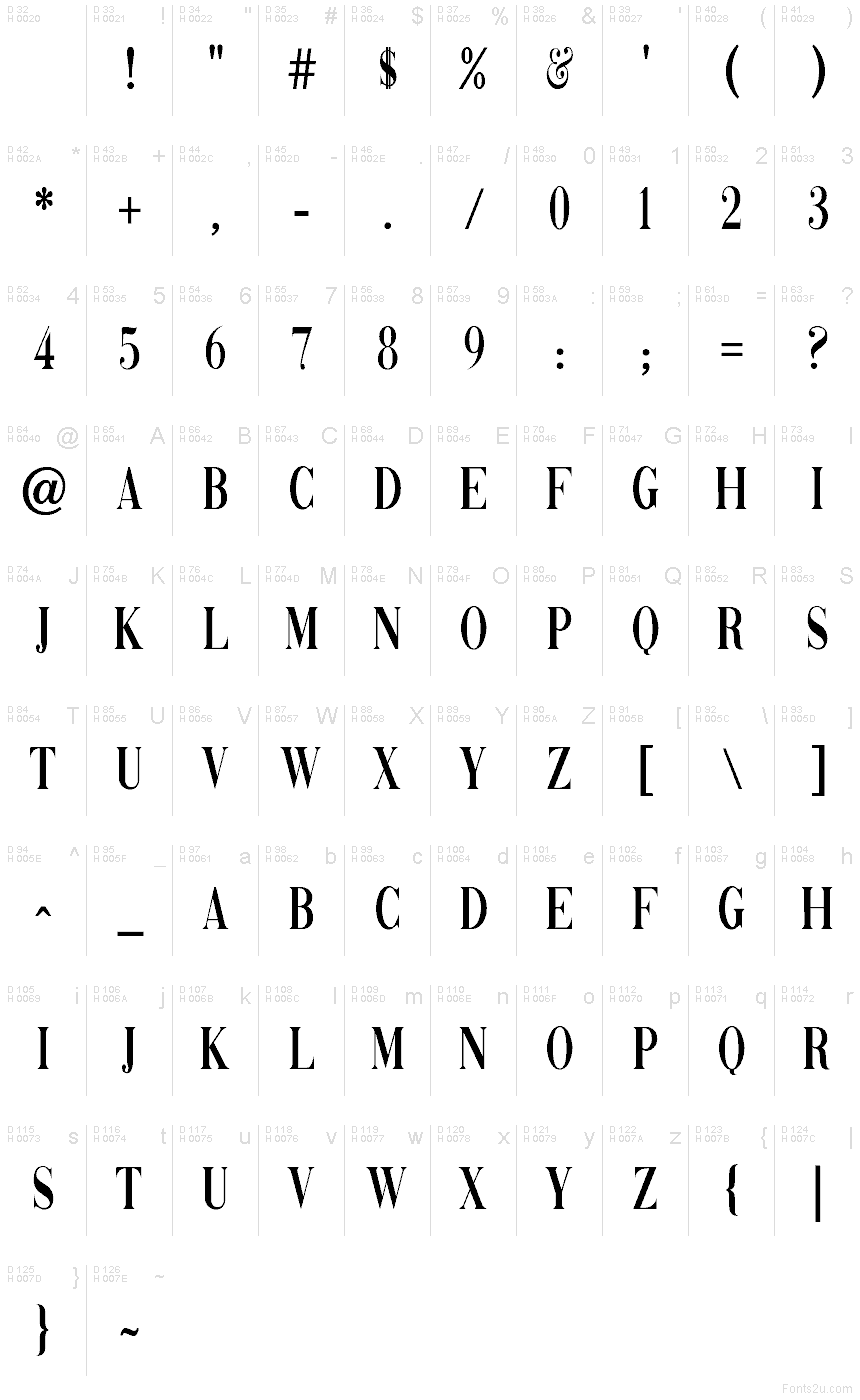
Misky font by Graphicxell is a free modern serif typeface. Its signature look comes from knife‑edge serifs, tall verticals, and those silky, sweeping curves that pour through the letters like ink. The rhythm feels poised and confident-tight where it needs to hold form, then opening into generous bowls that catch the eye without shouting.
Using Misky, headlines and marks land with couture polish. This free font shines on boutique logos, magazine mastheads, beauty packaging, event posters, book covers, and luxury menus. Keep it large to let the sculpted shapes breathe, and pair with a simple grotesque sans for body copy to balance the sharpness.